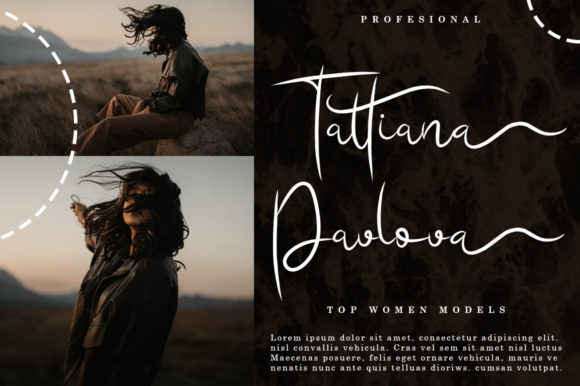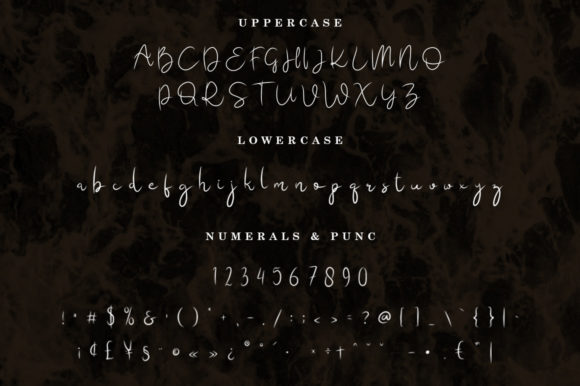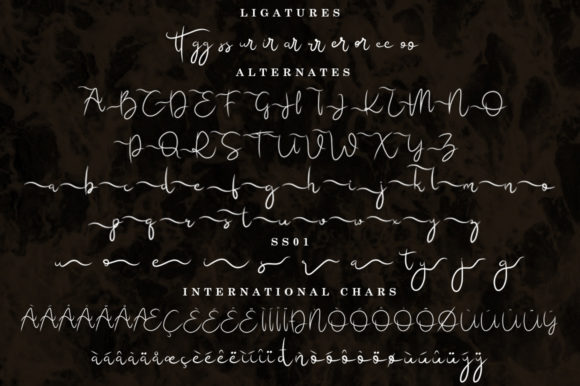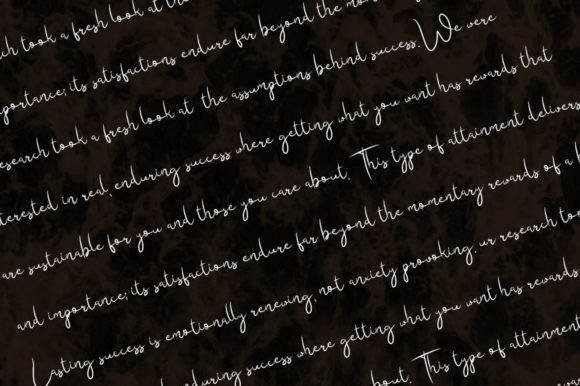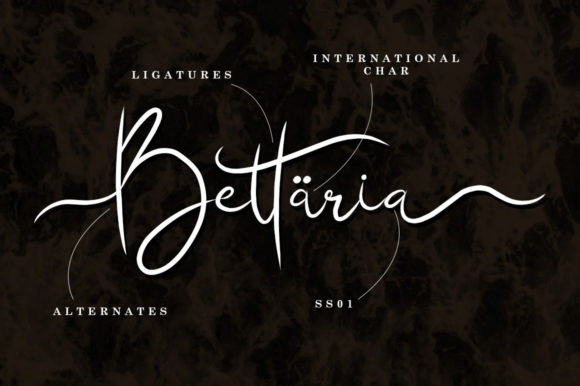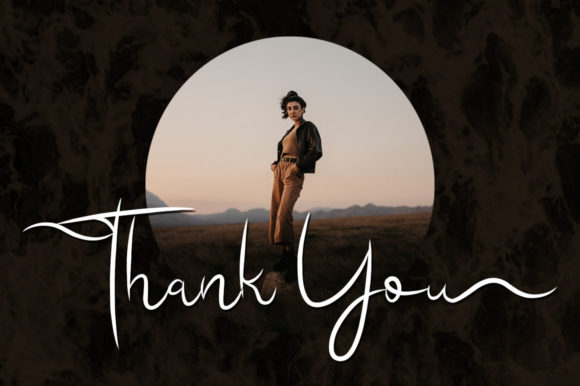
Humblezing Font
About Humblezing Font
Humblezing is a delicate and fashionable script font. It is perfect for any branding project such as logos, t-shirt printing, creative products, and more. This font is PUA encoded which means you can access all of the glyphs and swashes with ease!